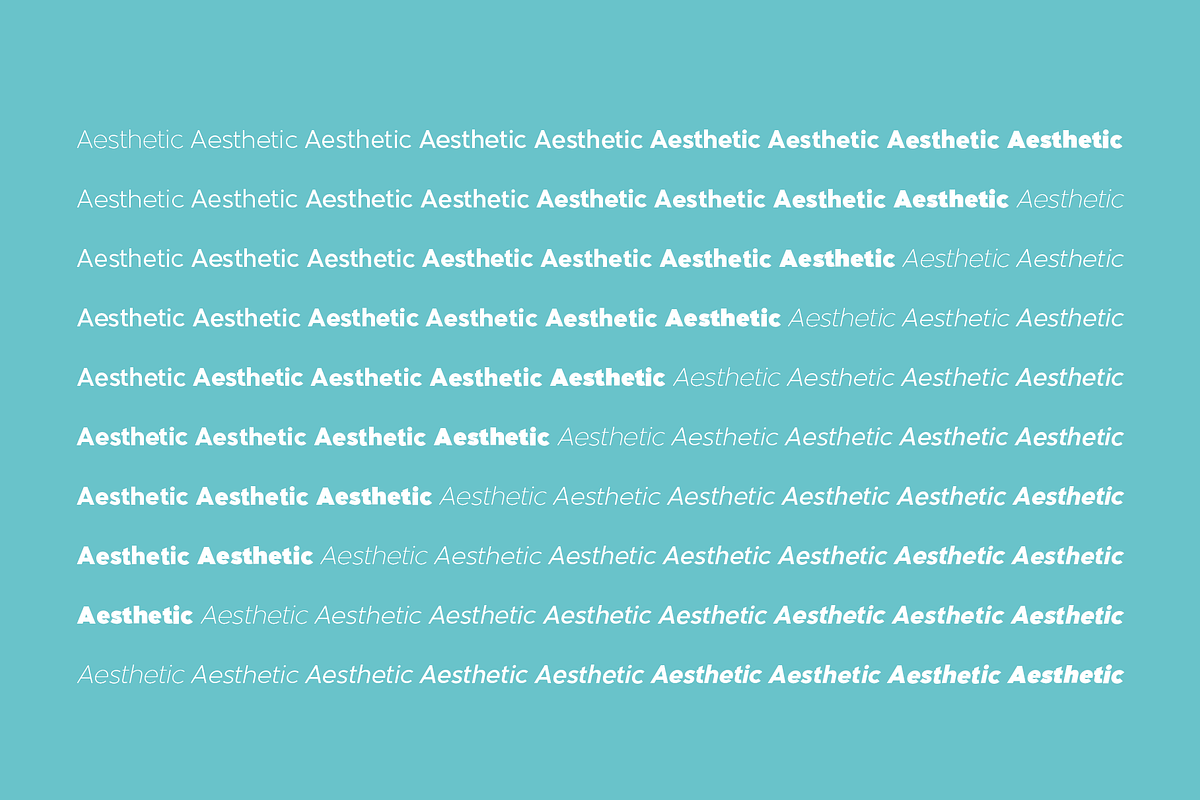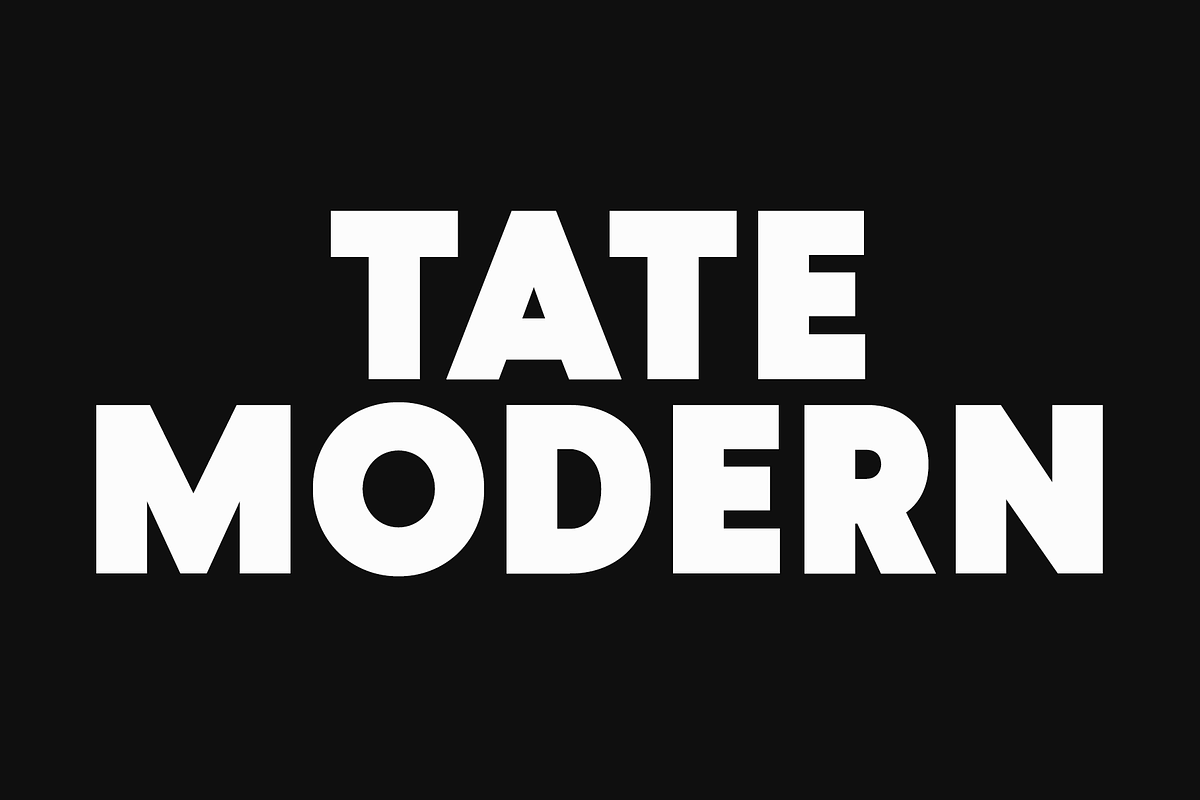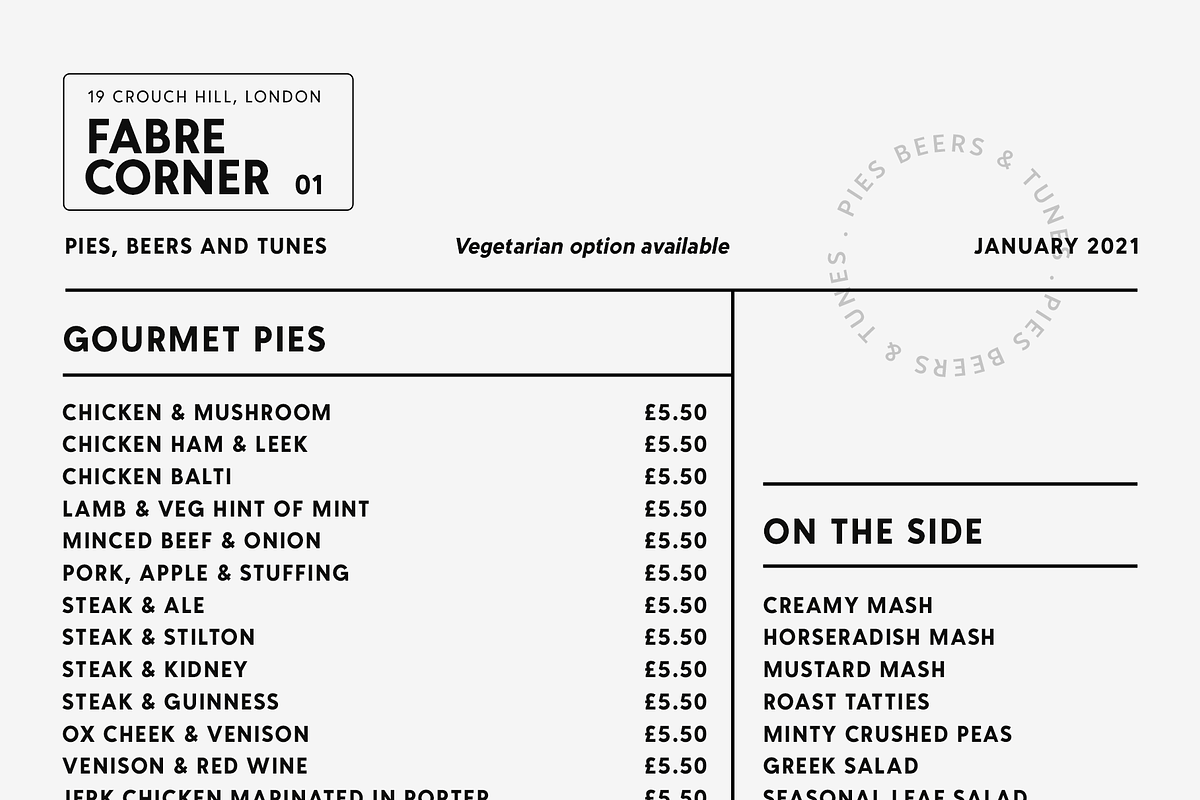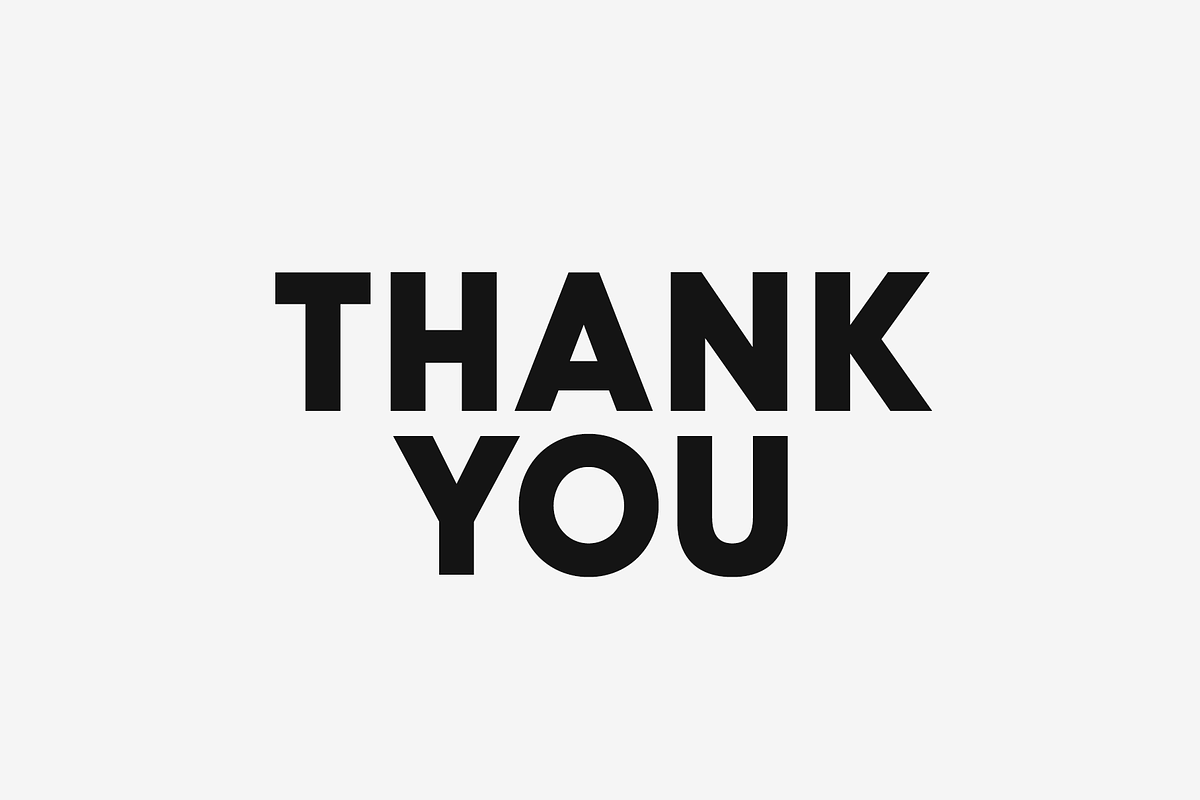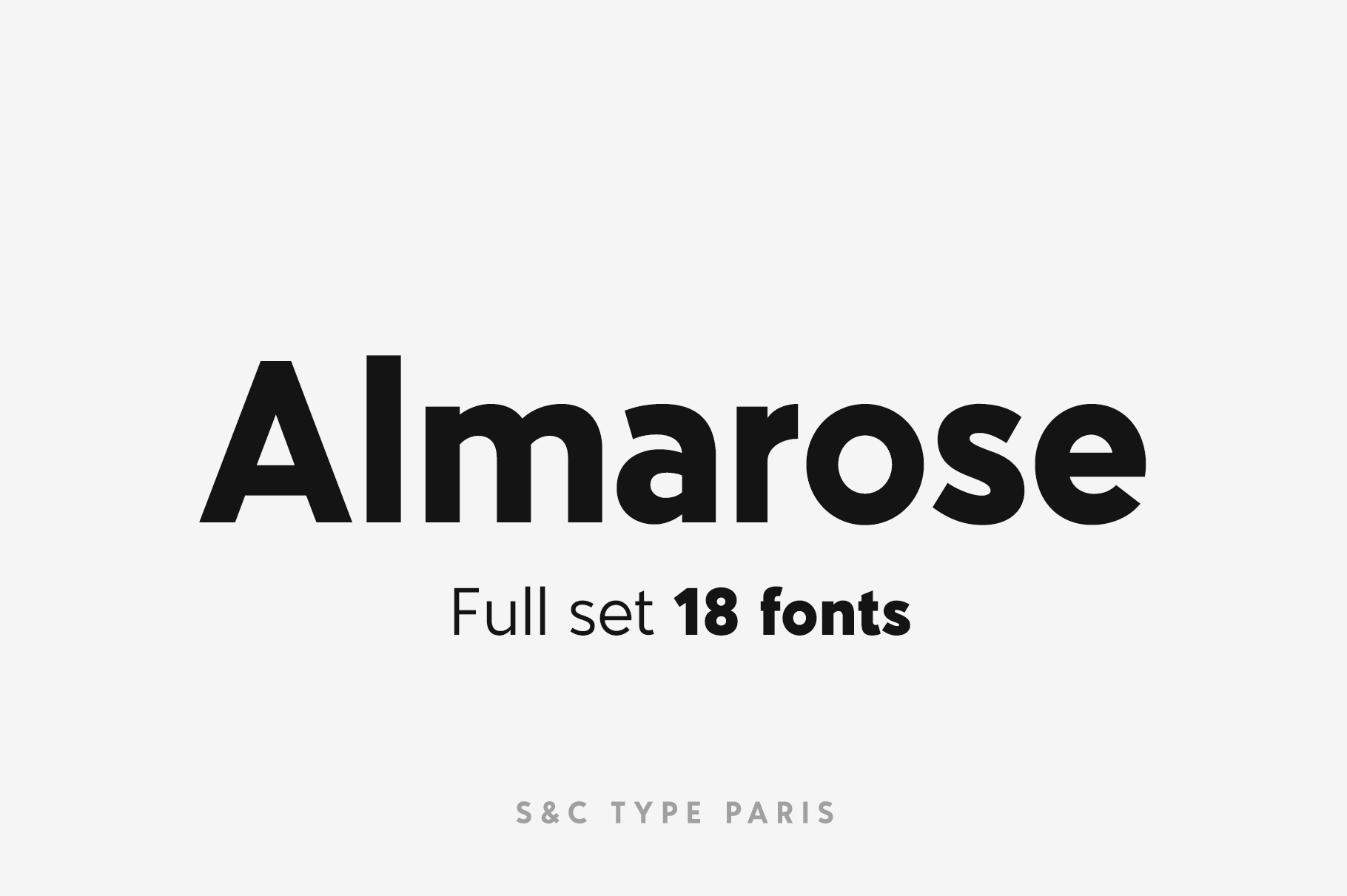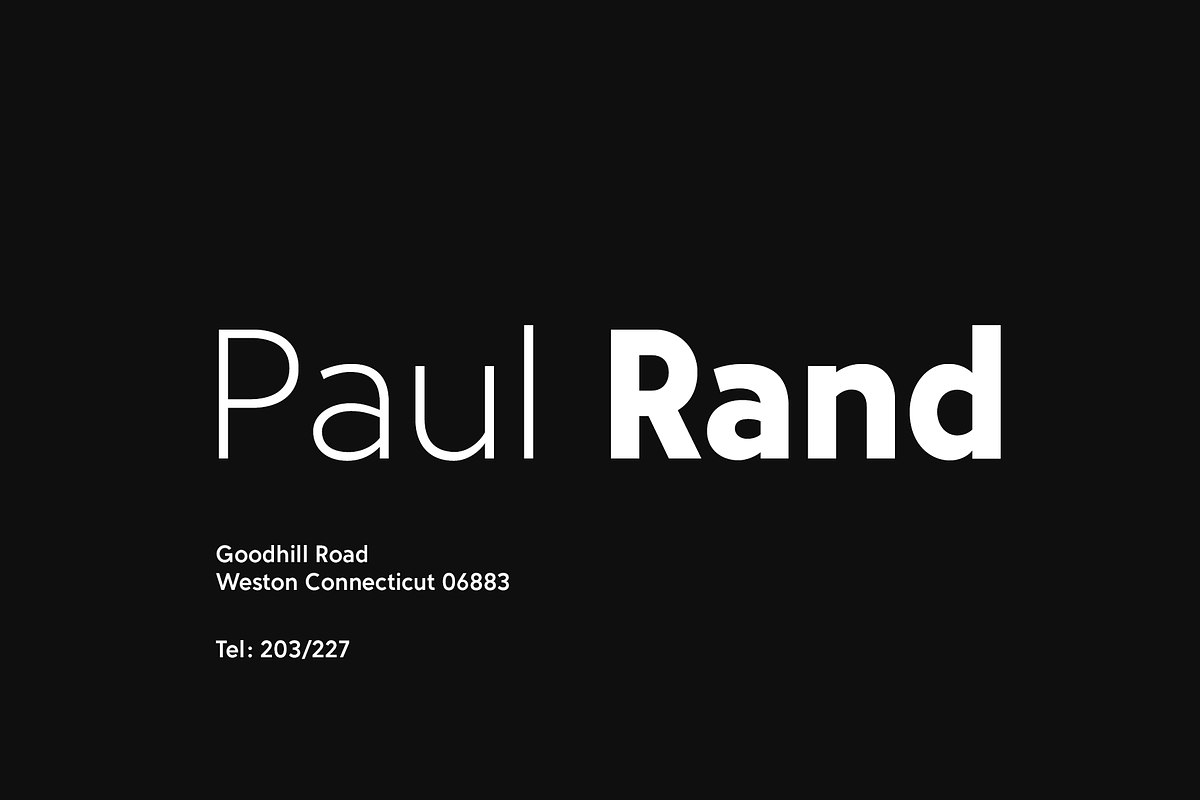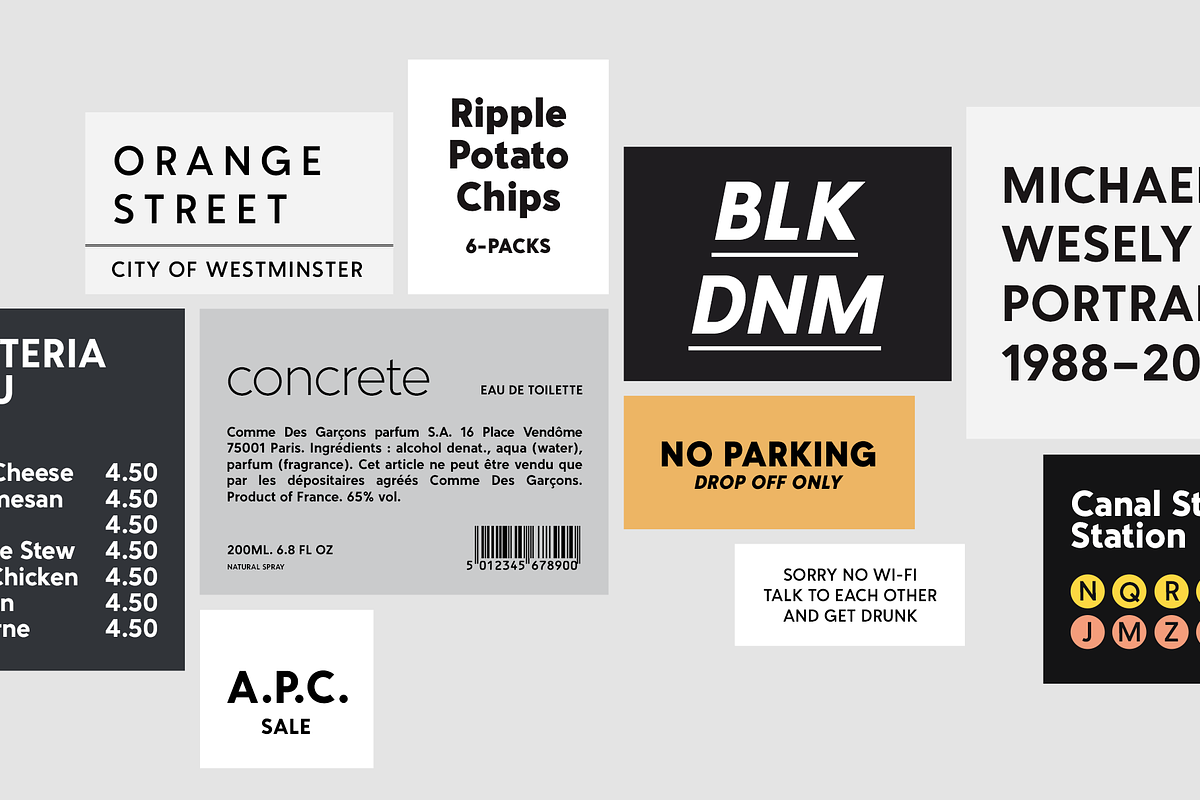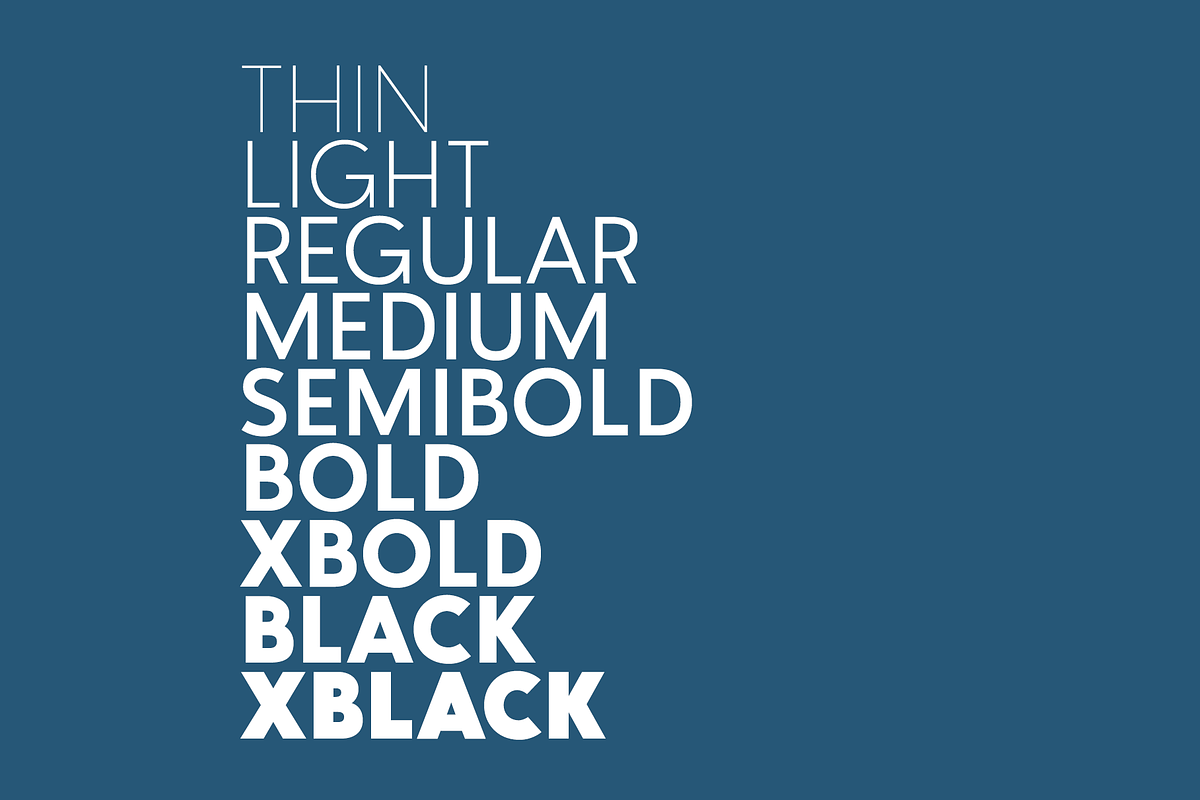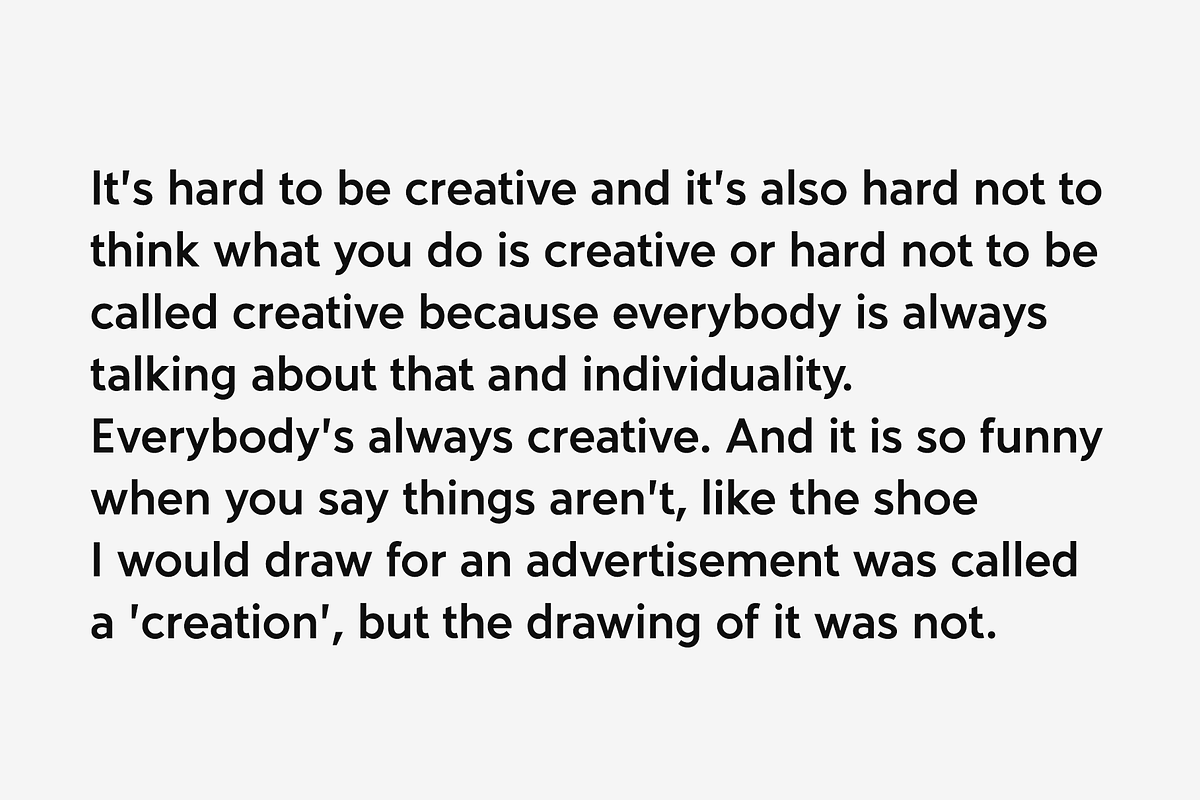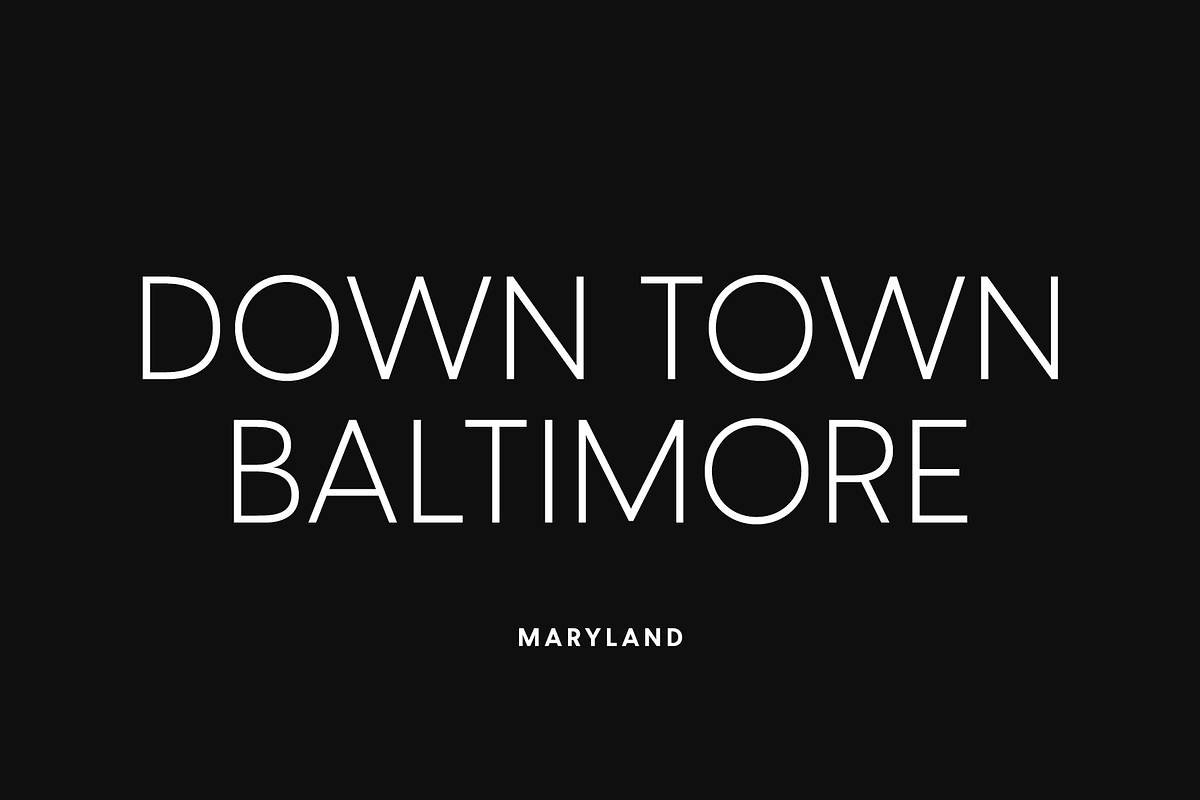
Almarose Font Collection (18 fonts)
Almarose is a geometric sans serif font designed by Fanny Coulez and published by S&C Type. Functional with a little distinctive touch, Almarose comes with 9 weights with italics, from Thin to ExtraBlack, and was designed for all uses like texts, web or headlines.